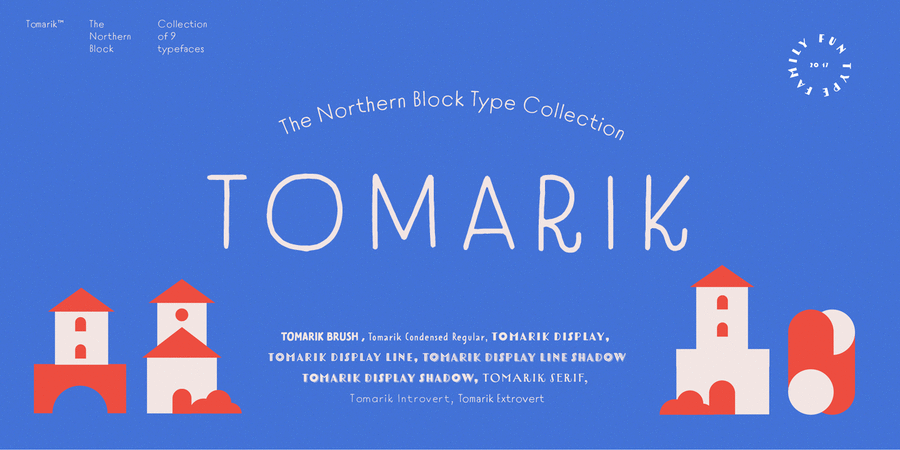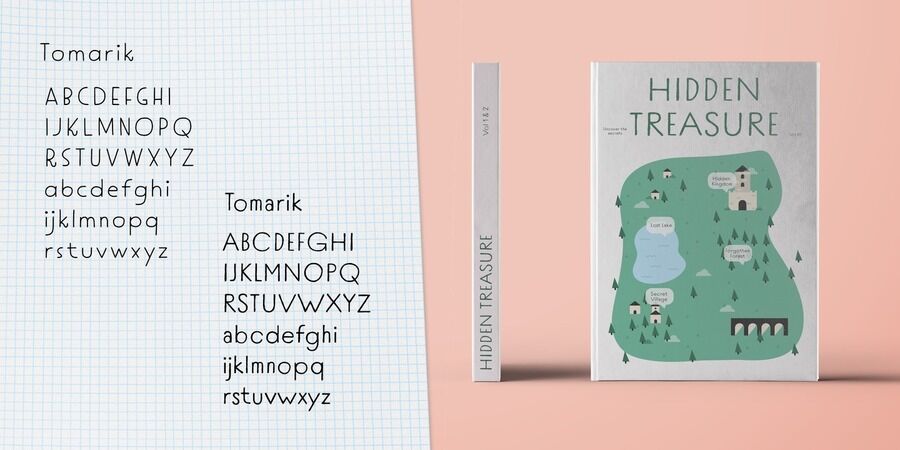
About Tomarik ExtrovertThis open sans-serif drawn with pen is a part of Tomarik vibrant handwritten font collection. The playful addition to any creative depository. Assembled with the ""pick-and-mix"" idea in mind, it offers a great variety of flavor and zest.
Tomarik features nine distinctive weights with Latin and Cyrillic and includes OpenType features such as fractions, inferiors and superiors. Designed by Mariya Pigoulevskaya in 2017. Tomarik™ is a trademark of The Northern Block.